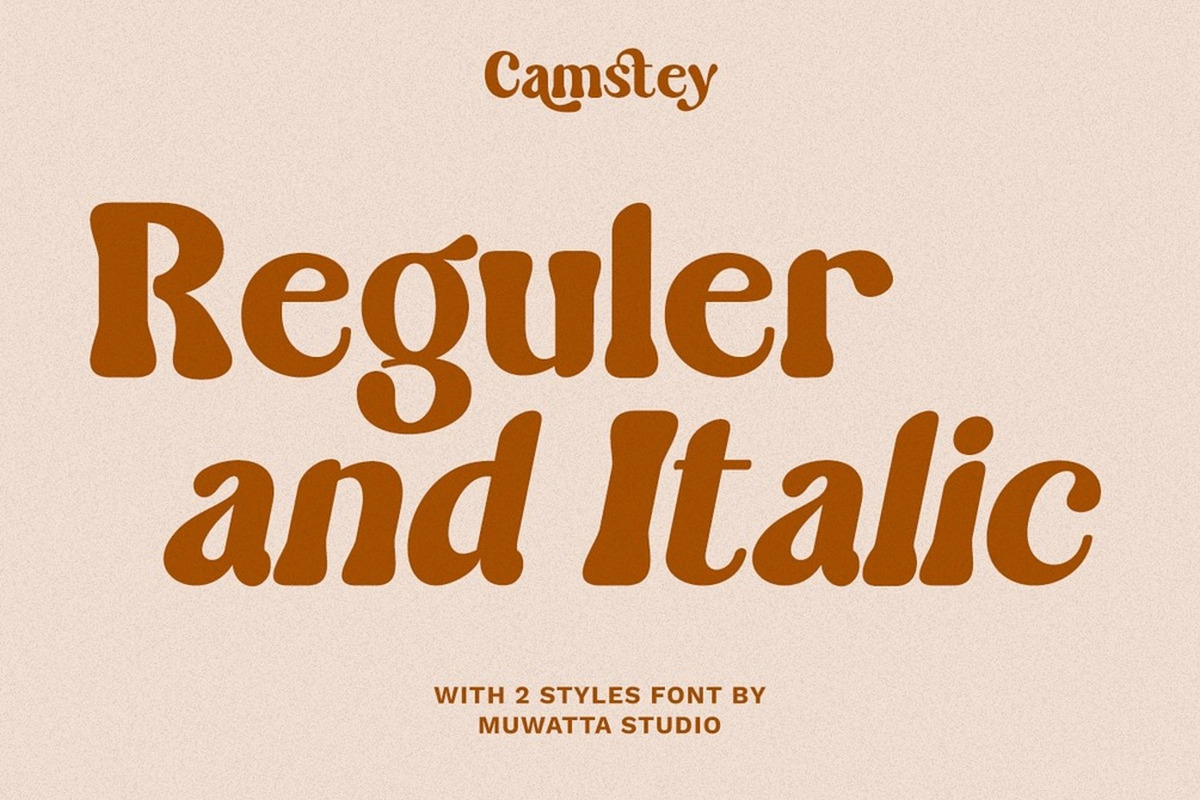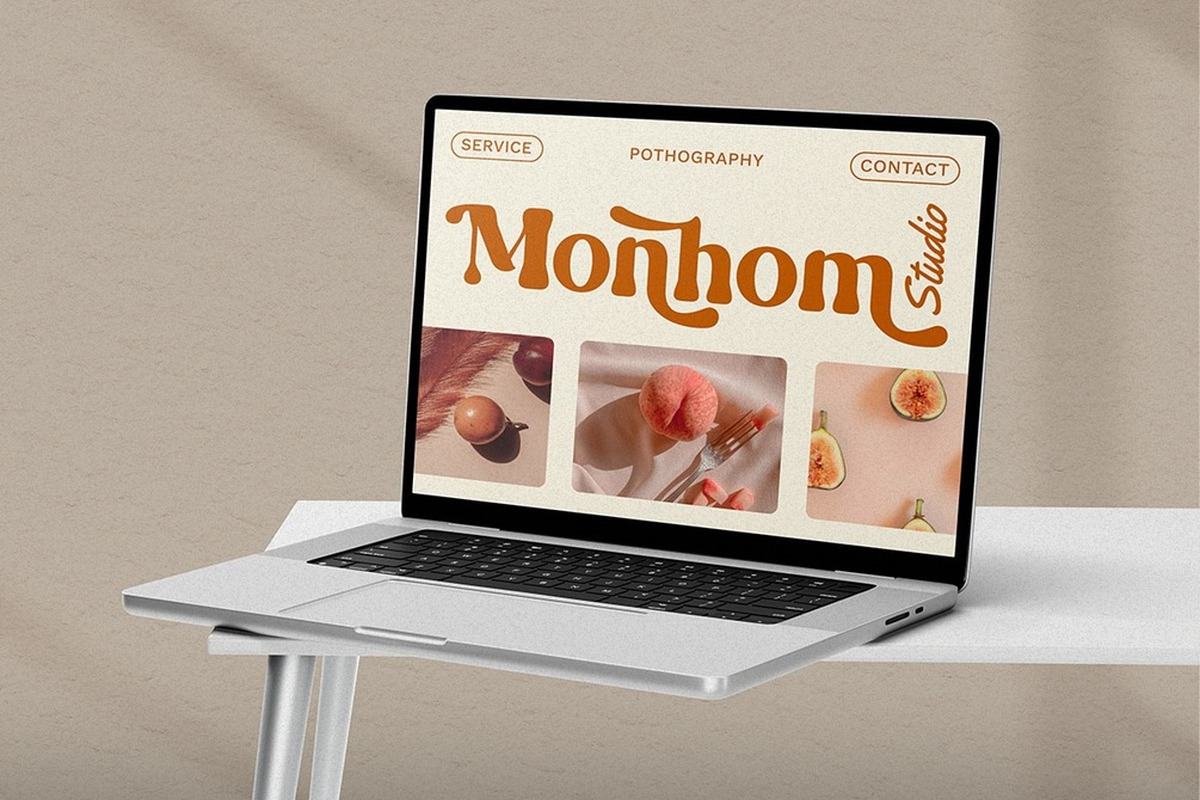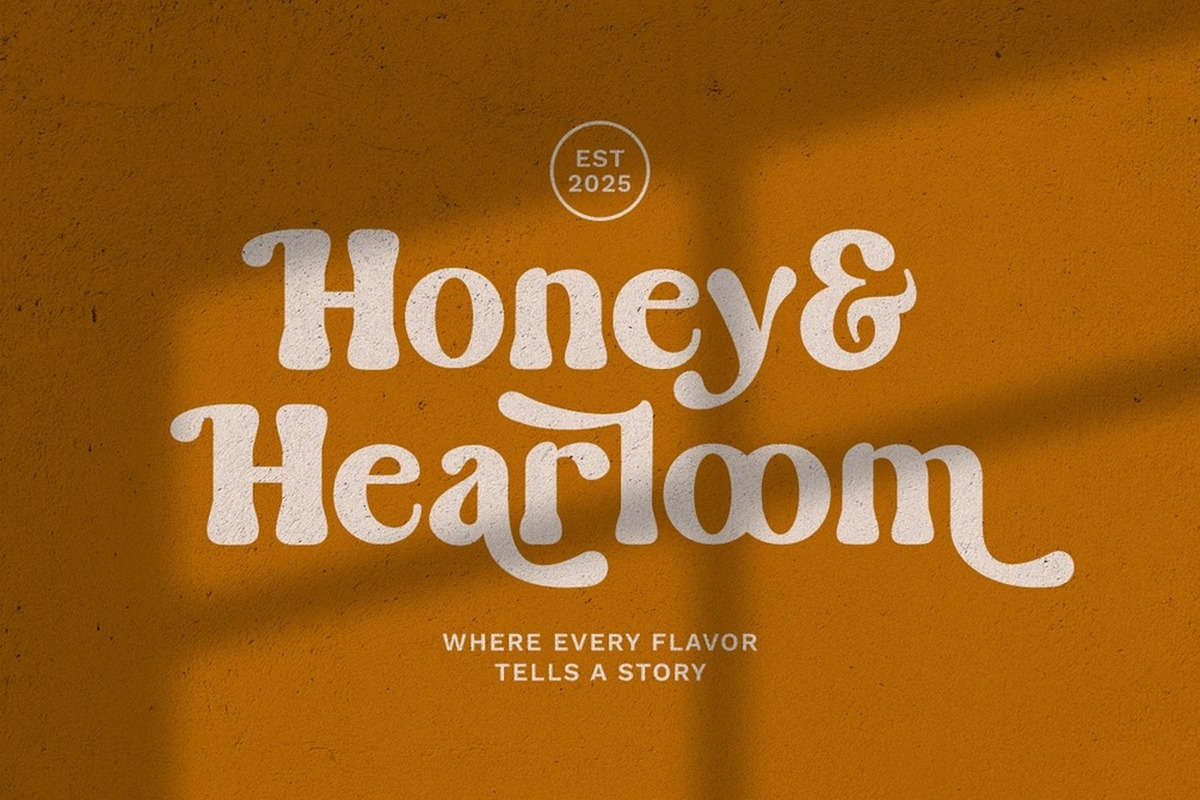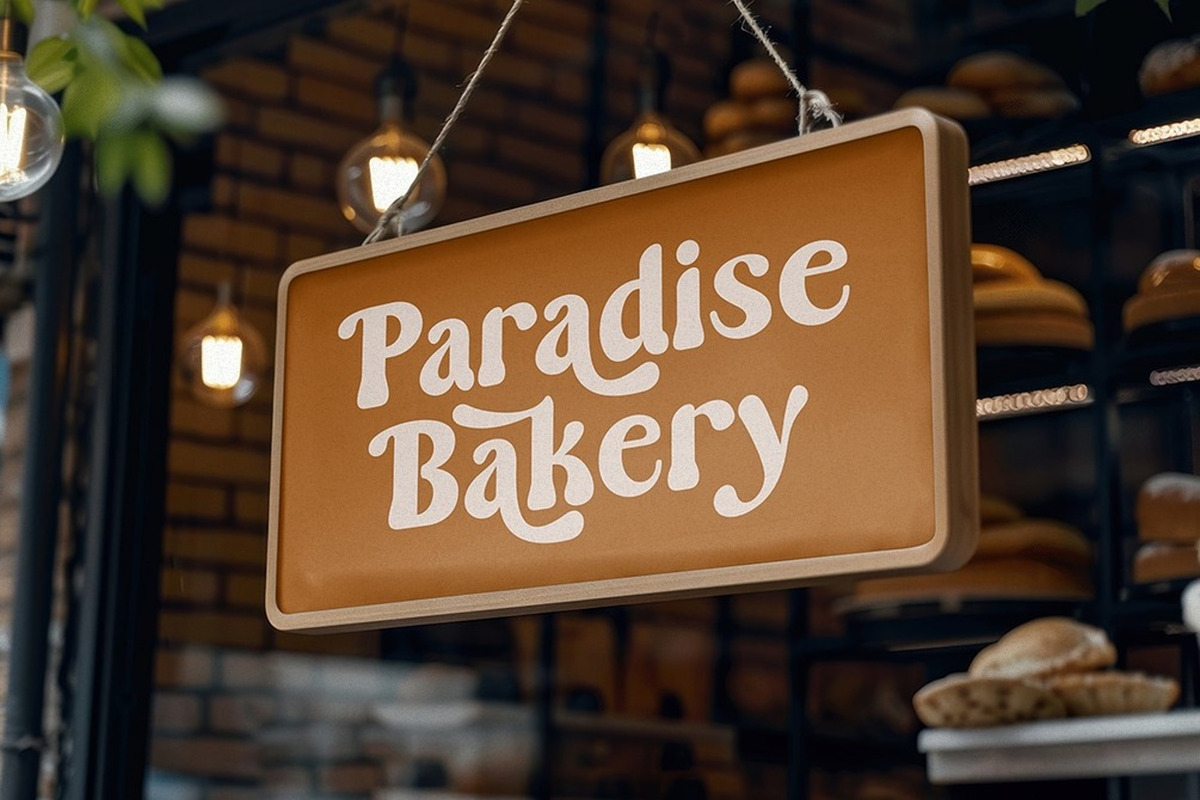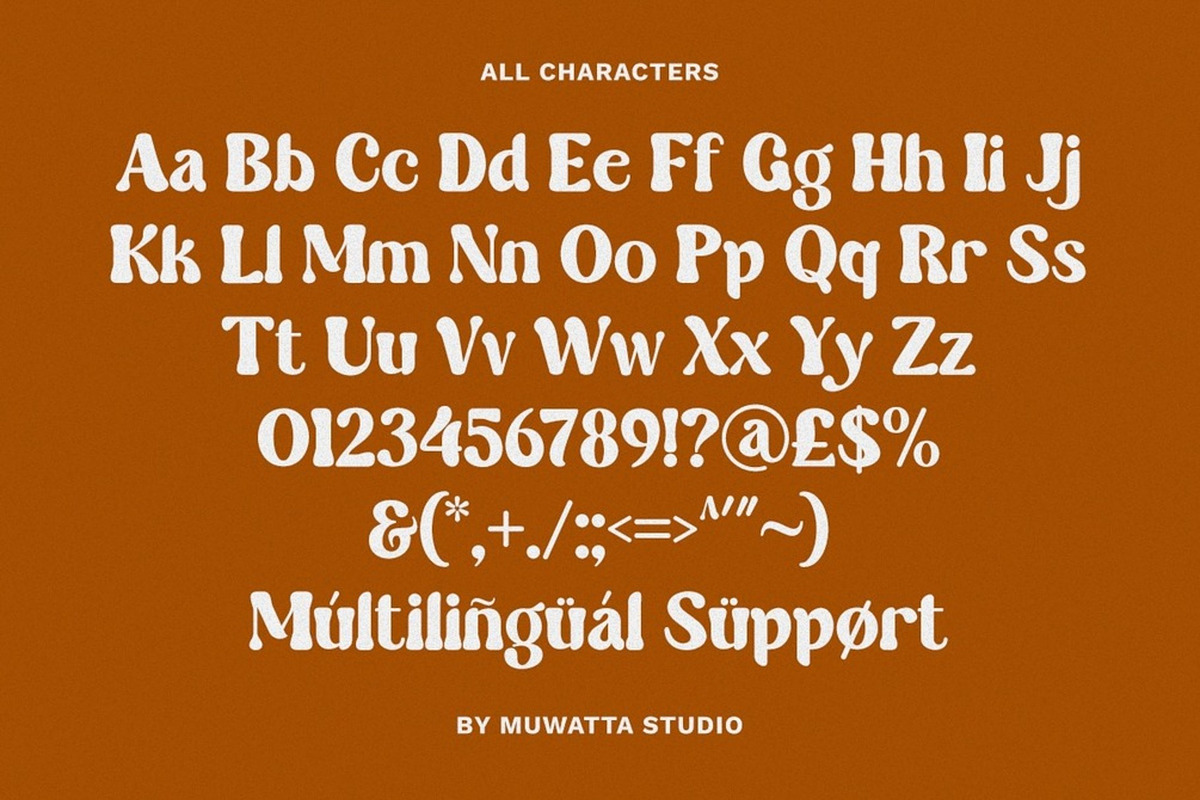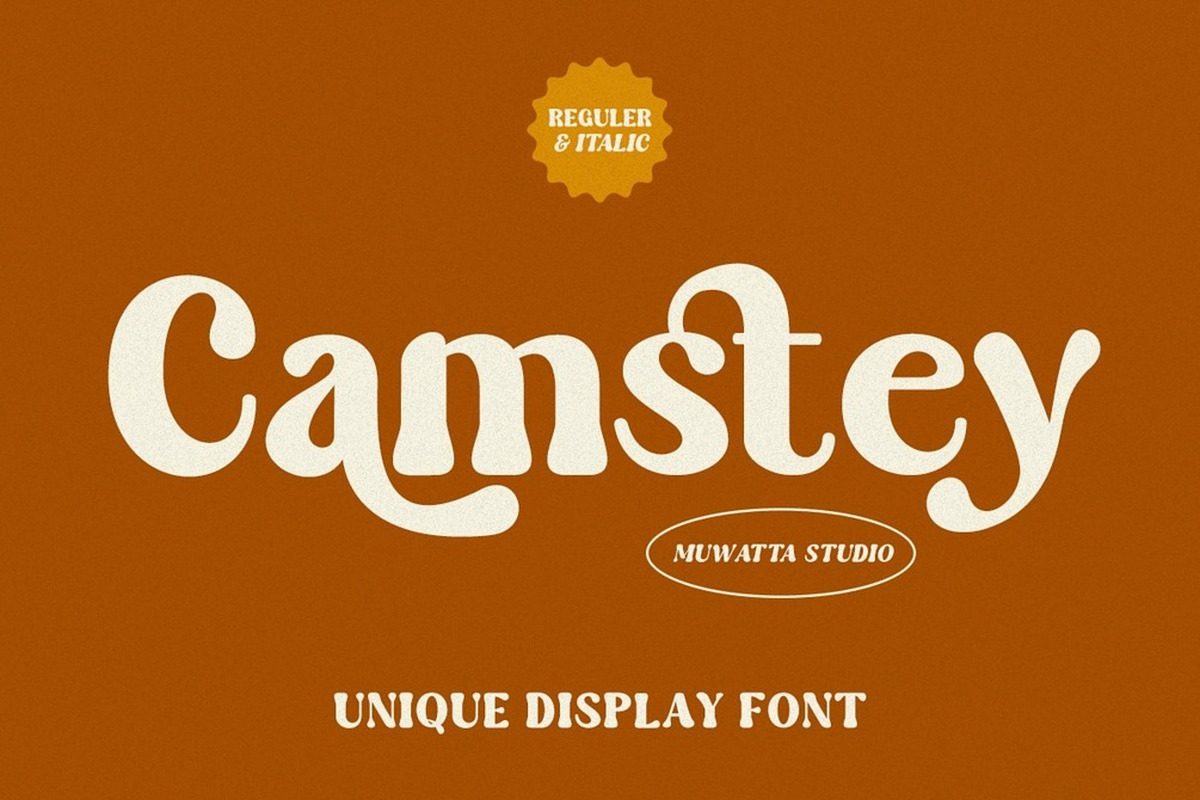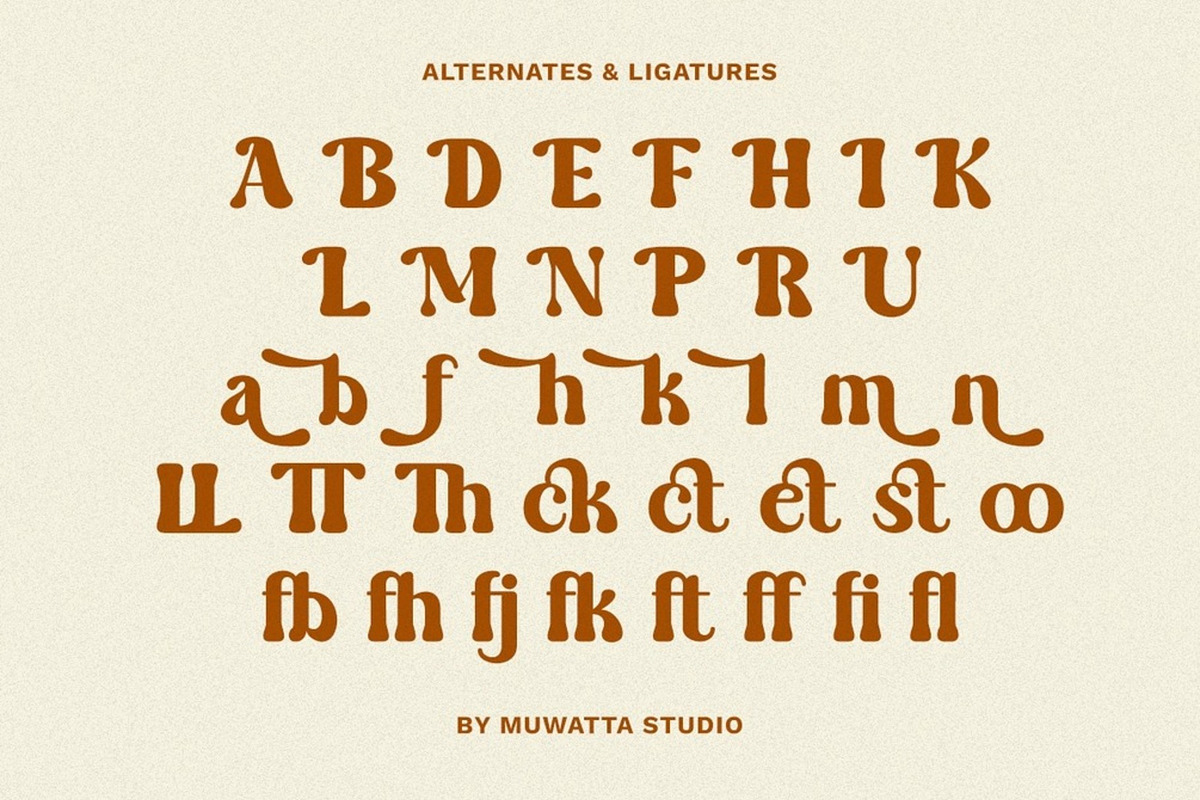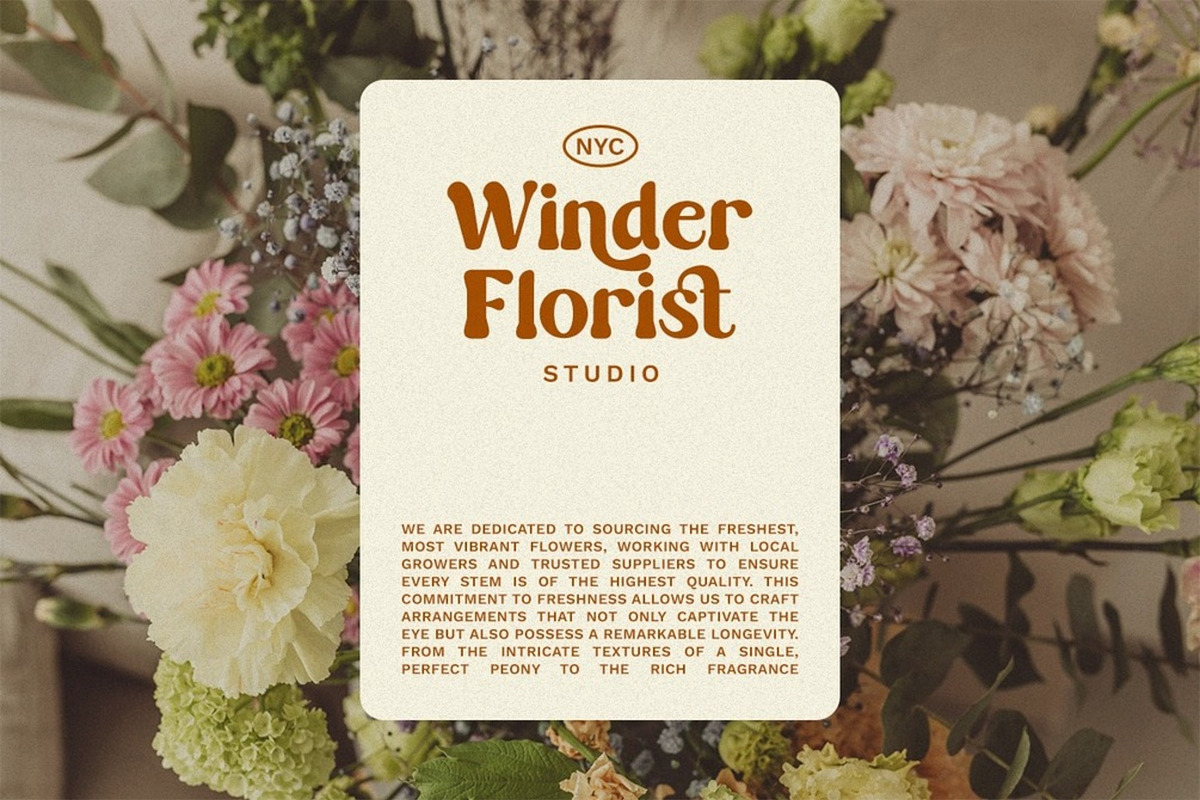
Camstey – Groovy Display
✨ Camstey – Groovy Display Font with Retro Soul
Camstey is a characterful display font, embracing the groovy spirit of the 70s combined with a playful modern style. With unique letterforms, bold, dynamic curves, and a strong visual rhythm, Camstey is ready to steal the show in any design that requires a strong and expressive visual statement.
Designed to stand out in headlines, posters, logos, and other creative typography projects, Camstey is the perfect choice for designers who want to be different and bold.
✦ Ideal for:
-Retro posters & album covers
-Creative & youth-oriented branding design
-Unique merchandise & packaging
-Experimental editorial projects
-Typography art & statement quotes